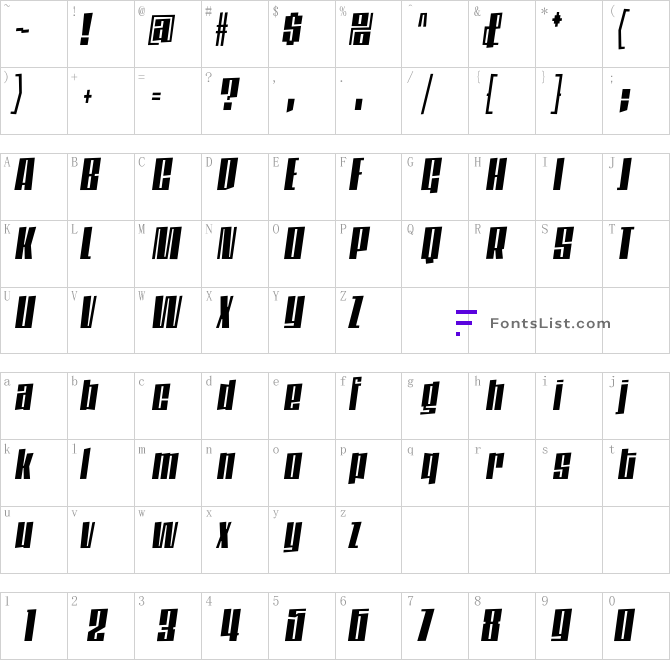
- Font Name:DaleysGothic
- Full Name:DaleysGothic-BoldItalic
DaleysGothic-BoldItalic.otf is a very beautiful artistic font, DaleysGothic-BoldItalic.otf is widely used in the design and printing of various books and pictures,DaleysGothic-BoldItalic.otf has a strong visual impact,DaleysGothic-BoldItalic.otf is a commonly used font in newspapers, magazines and books, and is used in posters, e-commerce Poster design, store design, logo design, font design and other fields.DaleysGothic-BoldItalic.